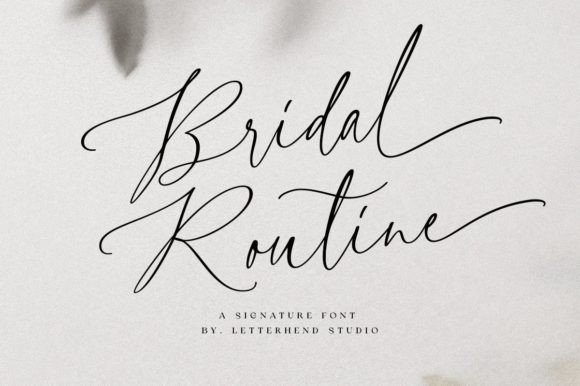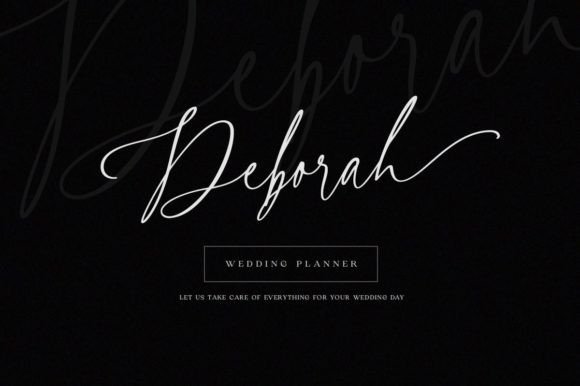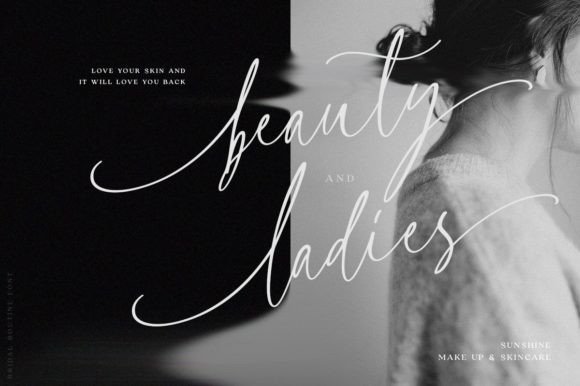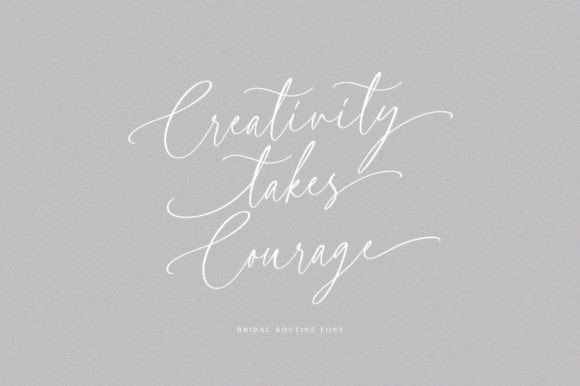
Bridal Routine Font
Bridal Routine is a beautiful signature script based on manual handwriting. The stylistic alternate, ligatures, and the tick and thin strokes make this font look like real handwriting. This typeface is perfect for logos and other formal forms such as invitations, labels, magazines, books, greeting/wedding cards, packaging, fashion, make-up, stationery, novels, labels, or any type of advertising purpose.This font is PUA encoded, which means you can access all of the glyphs and swashes with ease!